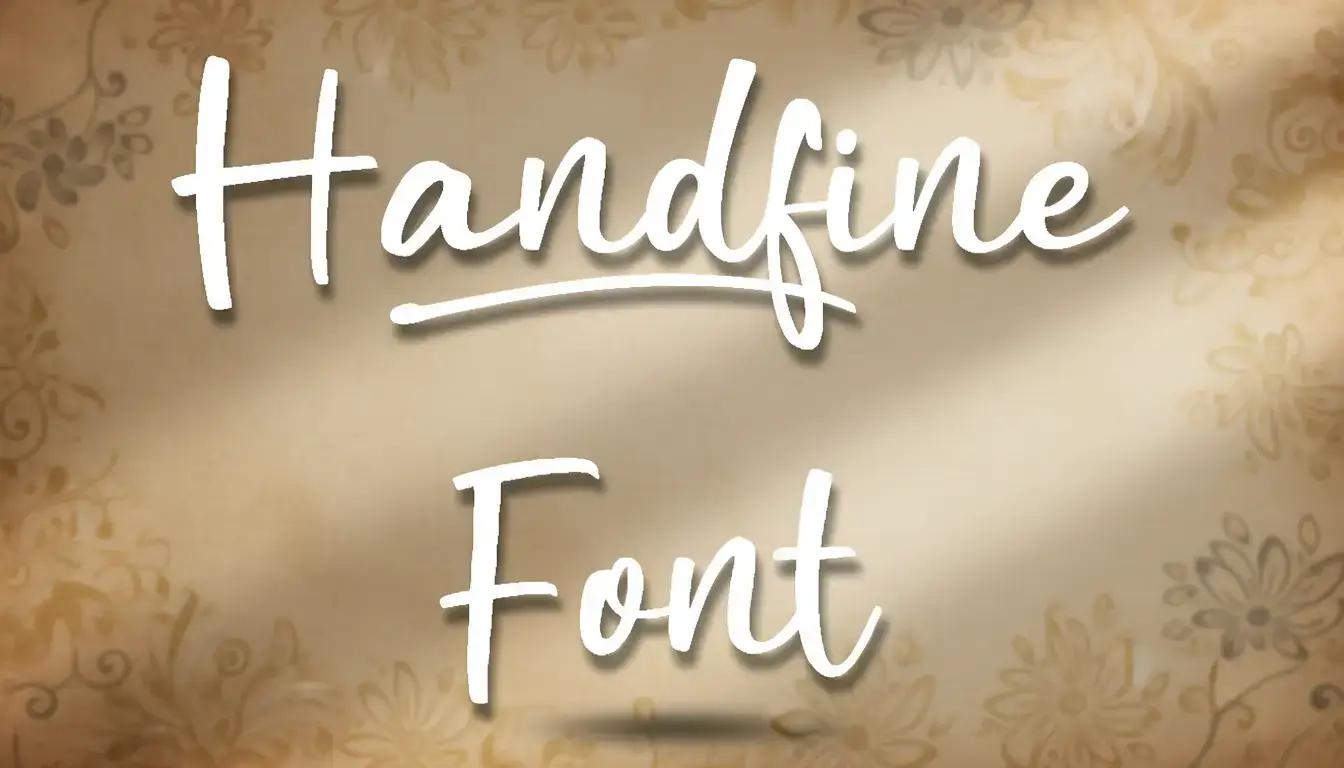
Handfine Font
Handfine
Handfine is a handwritten font made by Khurasan. The letters have the small wobbles and personality of real handwriting, so your text feels warm instead of printed. You can download it for free and test it with your own words in the preview above.
What You Can Type With Handfine
Handfine covers the full alphabet in upper and lowercase, plus all ten numbers, so you can set names, dates and prices without switching fonts. Common punctuation such as &, !, ? and @ is included as well. It doesn't include accented letters such as é or ñ, which makes it an English-only font.
Where Handfine Works Best
Handfine is a natural fit for greeting cards, journal pages and friendly social posts. Set it a bit larger than you would a normal text font. Handwriting styles lose their charm once they get too small to read comfortably.
Does Handfine support accented letters?
No. Handfine has no accented letters such as é, ñ or ü, so it's best for English text.